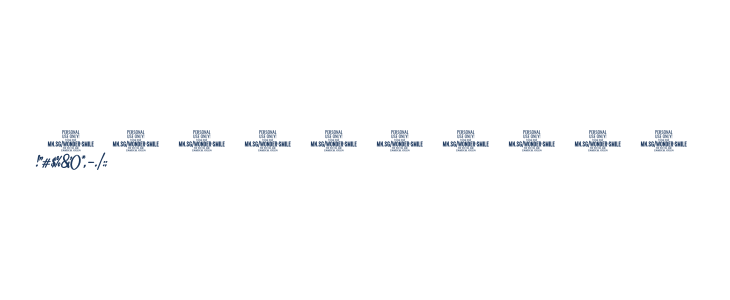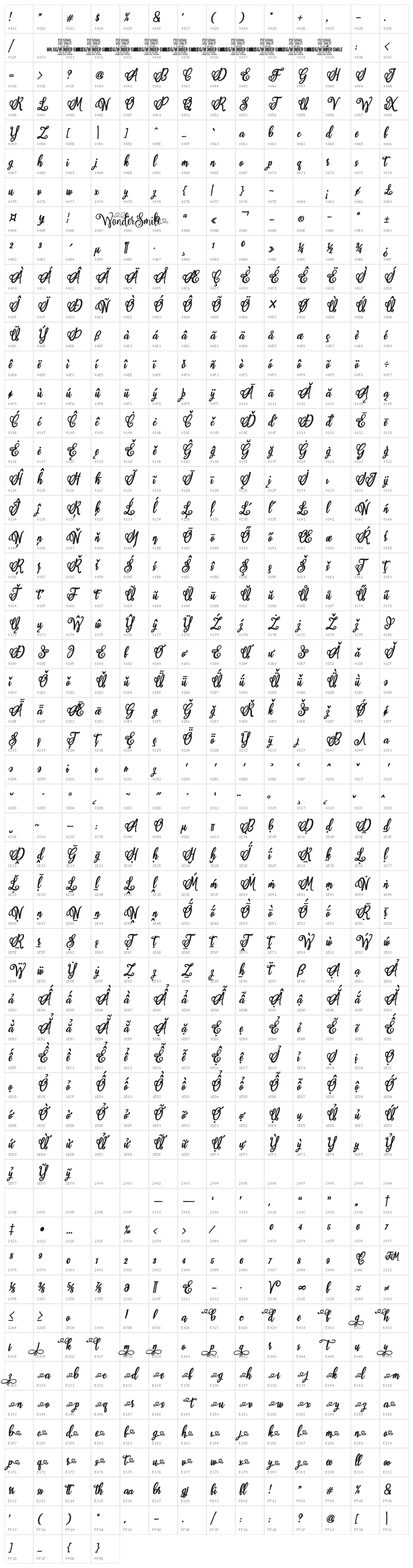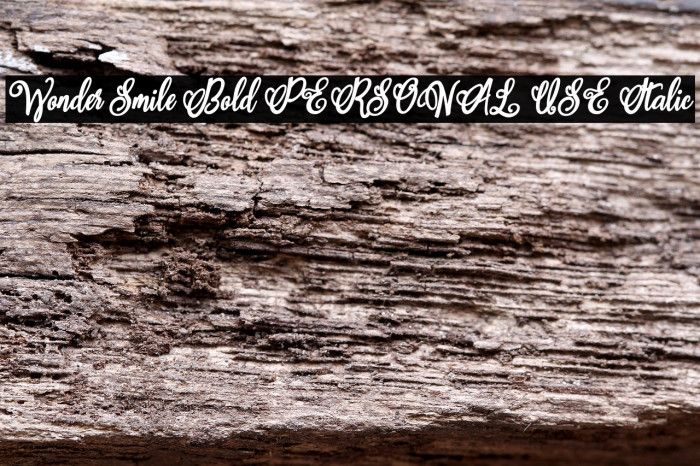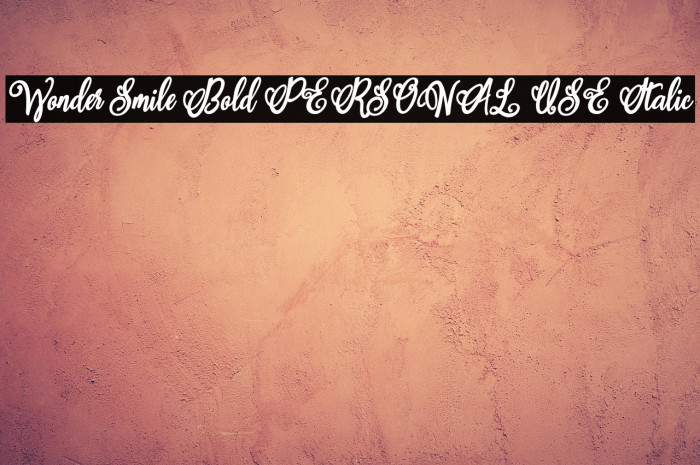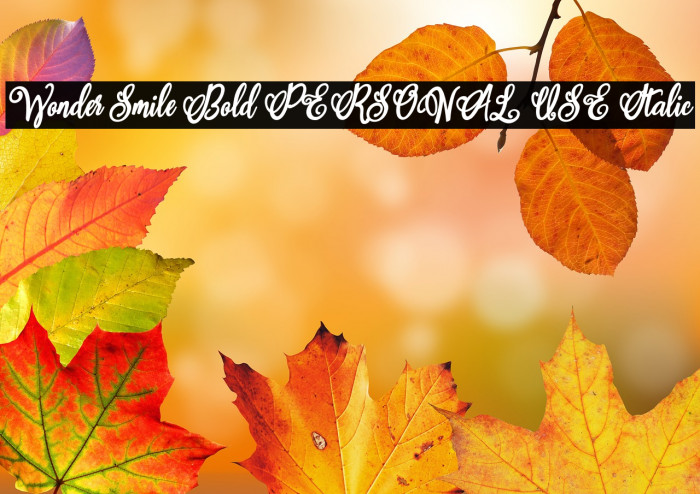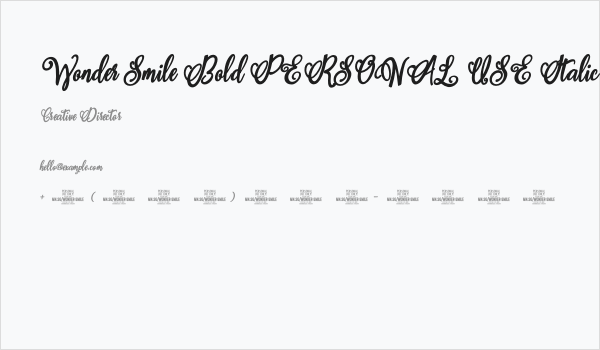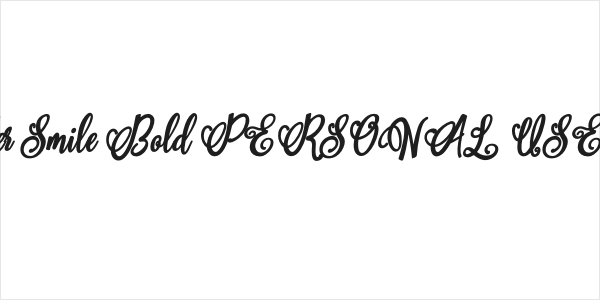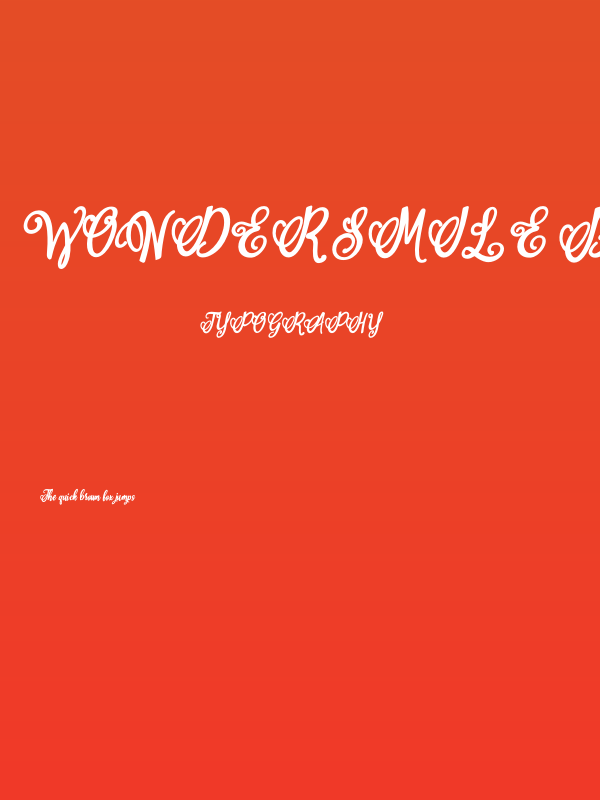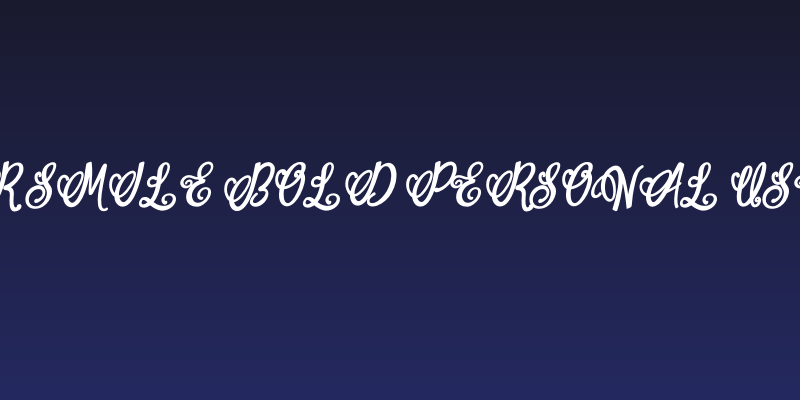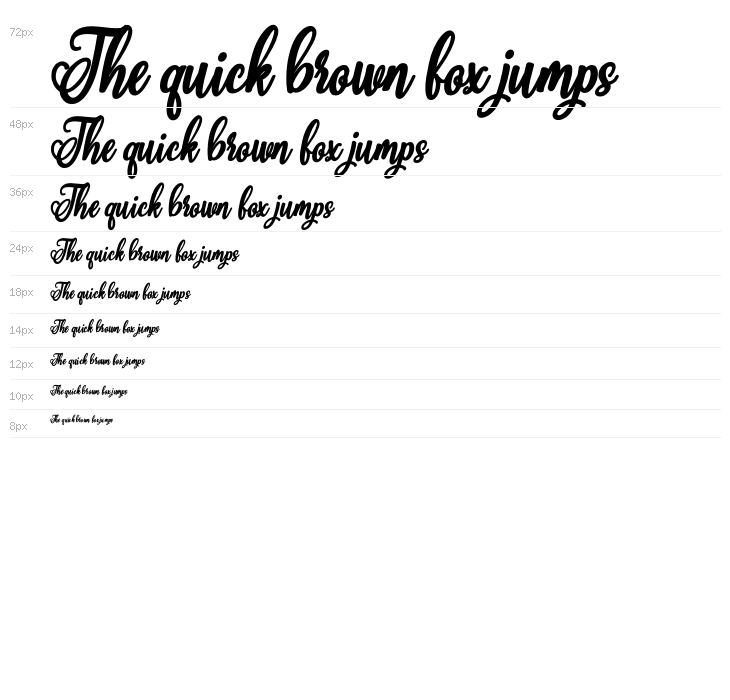
Wonder Smile Bold PERSONAL USE Italic Font
Wonder Smile Bold PERSONAL USE Italic Description
This font features a bold and playful script style with a handwritten feel. The characters are connected, giving it a flowing and dynamic appearance. The uppercase letters are ornate with loops and swirls, while the lowercase letters maintain a consistent and smooth stroke. The font includes a full set of uppercase and lowercase letters, numbers, and a variety of special characters, making it versatile for various design needs. Its bold weight and italic slant add to its expressive nature, making it suitable for projects that require a touch of elegance and creativity.
| Proposed Projects | Ideal for invitations, greeting cards, logos, and branding projects that require a personal and elegant touch. |